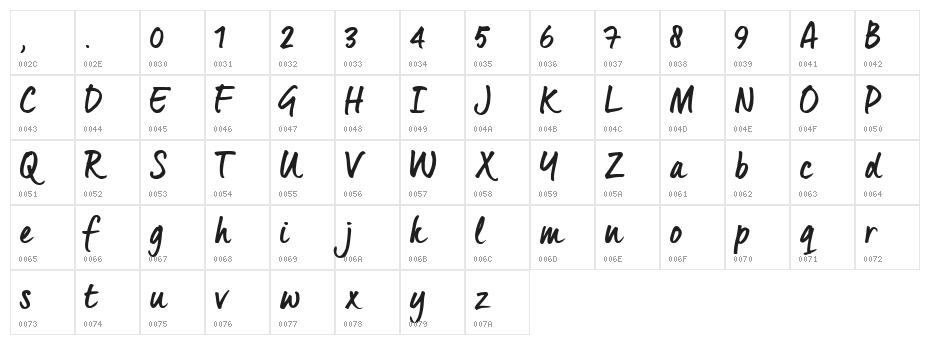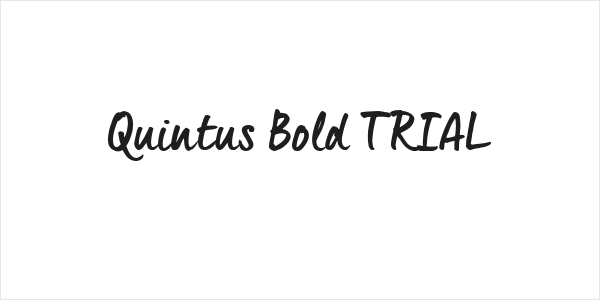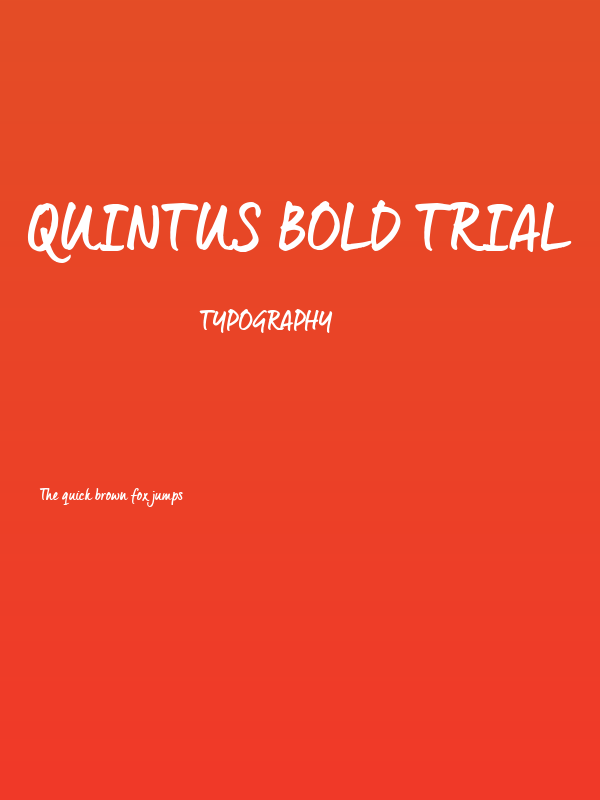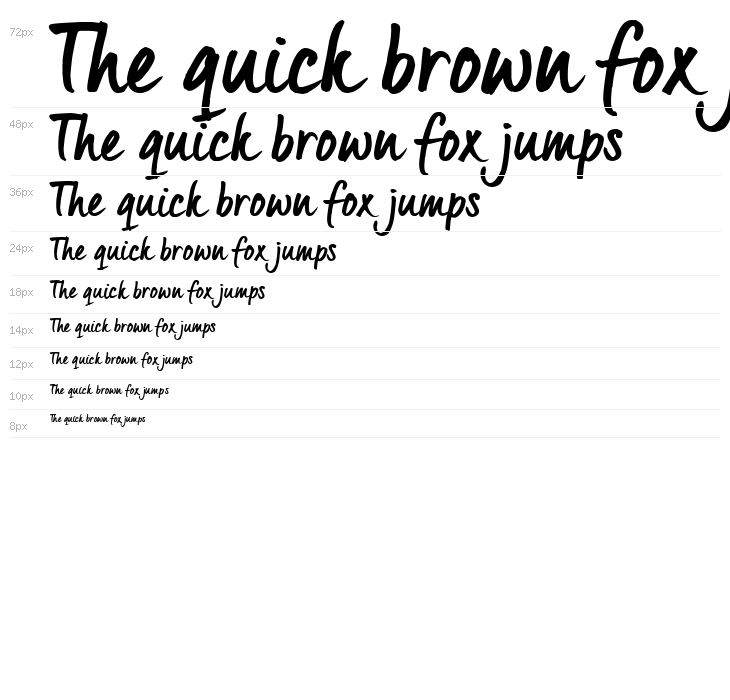
Quintus Bold_TRIAL Font
Quintus Bold_TRIAL Description
This font features a bold, handwritten style with a dynamic and energetic appearance. The letters are slightly slanted, giving it a casual yet sophisticated look. The strokes are thick and consistent, providing a strong visual impact. The uppercase and lowercase letters maintain a cohesive style, with rounded edges and smooth curves. The numbers and special characters are designed to match the overall aesthetic, ensuring uniformity across all elements. This font is ideal for projects that require a personal touch or a creative flair.
| Proposed Projects | Ideal for branding, invitations, social media graphics, and creative projects that require a personal touch. |